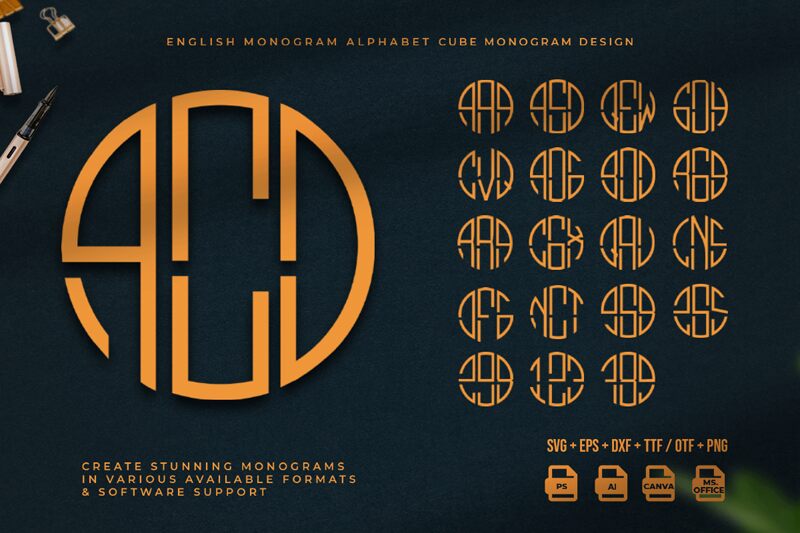
Monogram Circle 3 Alphabet
Monogram Circle 3 Alphabet font, a standout from the Monogram Circle family, captures attention with its bold and decorative style. Designed by Kong Font, this unique typeface features striking circular forms intertwined with elegant detailing, creating a visually captivating experience. The expanded shapes give a sense of grandeur, making it perfect for grabbing immediate interest.
Ideal for branding, invitations, and promotional materials, this decorative font enhances any design project that seeks to impart personality and creativity. Its distinctive charm is not just an aesthetic choice but also an effective tool to communicate brand identity.